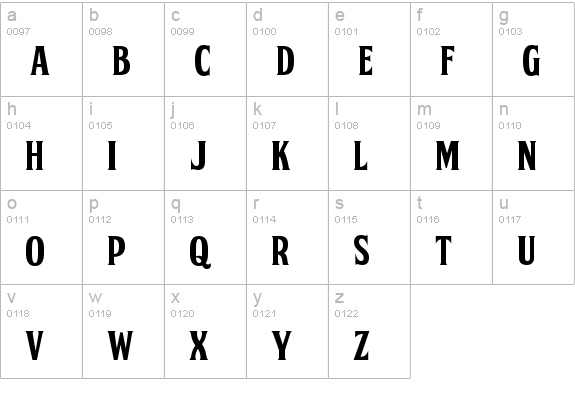
FTY SKORZHEN NCV Font Details
The FTY SKORZHEN NCV font is a stunning display typeface that exudes a powerful and edgy aesthetic. With its bold letterforms and unique design elements, this font is sure to make a statement in any project or design. Featuring sharp angles and strong lines, FTY SKORZHEN NCV adds a touch of modernity and sophistication to any typography. Its letters have a confident demeanor, making it perfect for headlines, posters, branding, and other attention-grabbing designs. What sets FTY SKORZHEN NCV apart is not only its striking appearance but also its versatility. It can effortlessly adapt to various design themes, whether it be a futuristic sci-fi concept or a gritty urban vibe. This font is incredibly versatile, allowing designers to explore limitless creative possibilities. One of the best things about FTY SKORZHEN NCV is that it is freely available to download at FontsMarket.com. This means that you can easily access and use this font in your projects without any restrictions. Whether you are a professional designer or an aspiring creative, this font provides you with an opportunity to enhance your work with a unique and captivating typeface. So, if you are looking to make a bold statement with your typography and elevate your designs to the next level, look no further than FTY SKORZHEN NCV. Download it for free today at FontsMarket.com and unleash your creativity with this exceptional font.